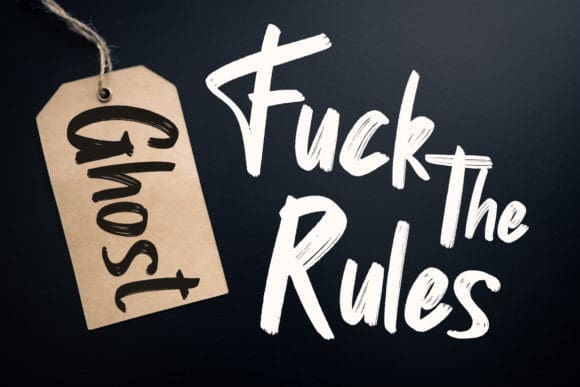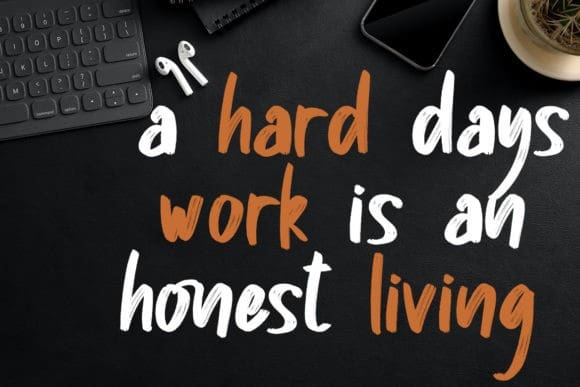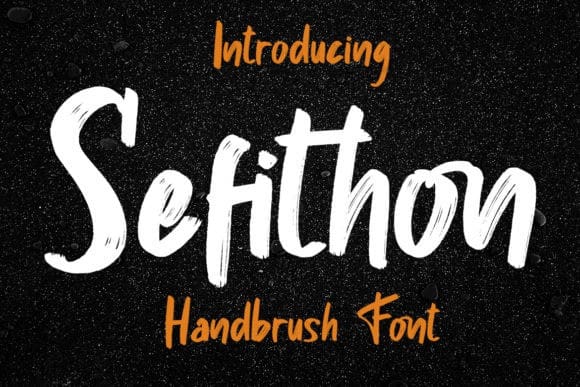
Sefithon Brush Font
Sefithon Brush Font is a hand-brushed display font. It will elevate a wide range of design projects to the highest level, be it branding, headings, wedding designs, invitations, signatures, logos, labels, and much more!